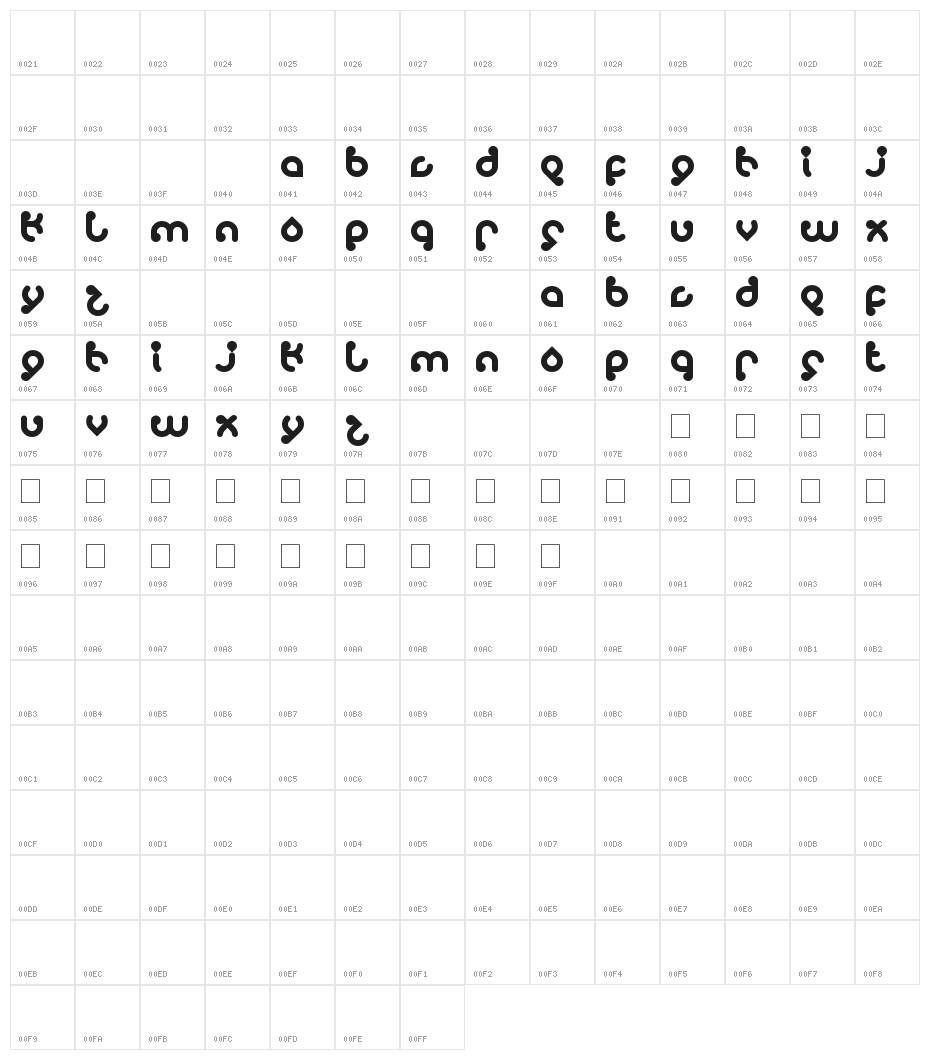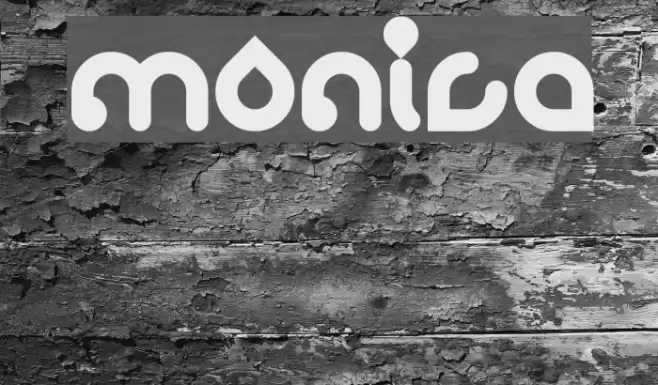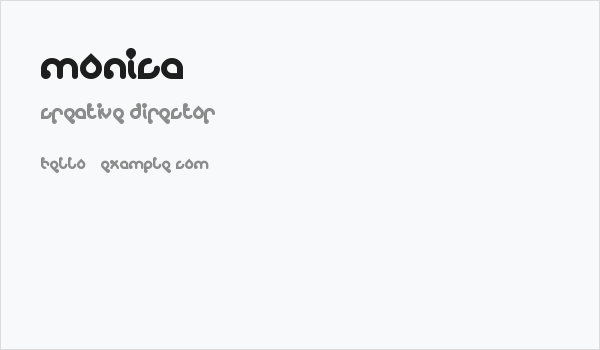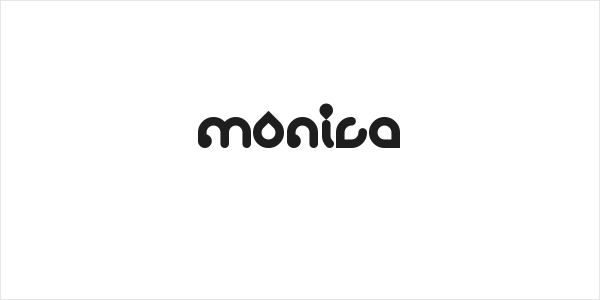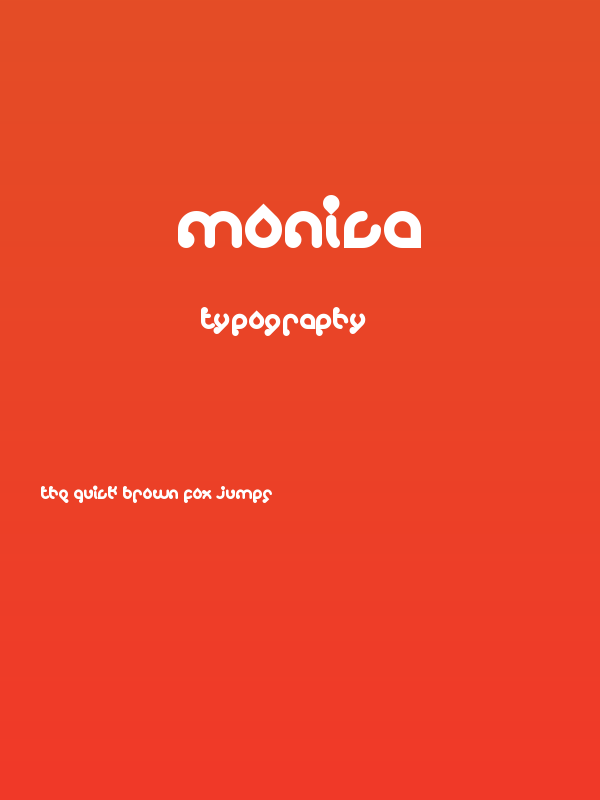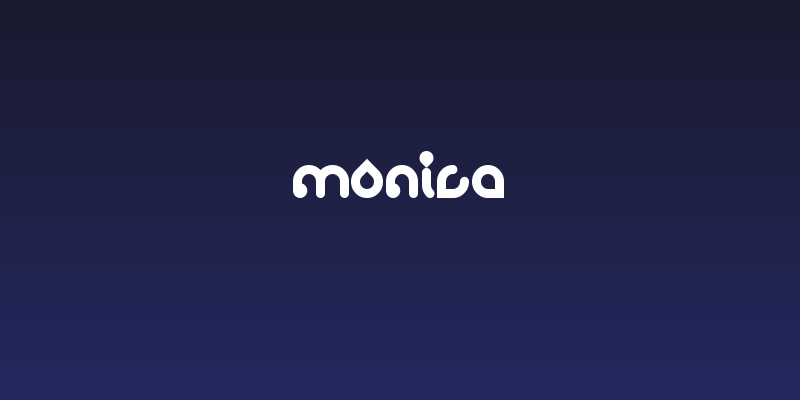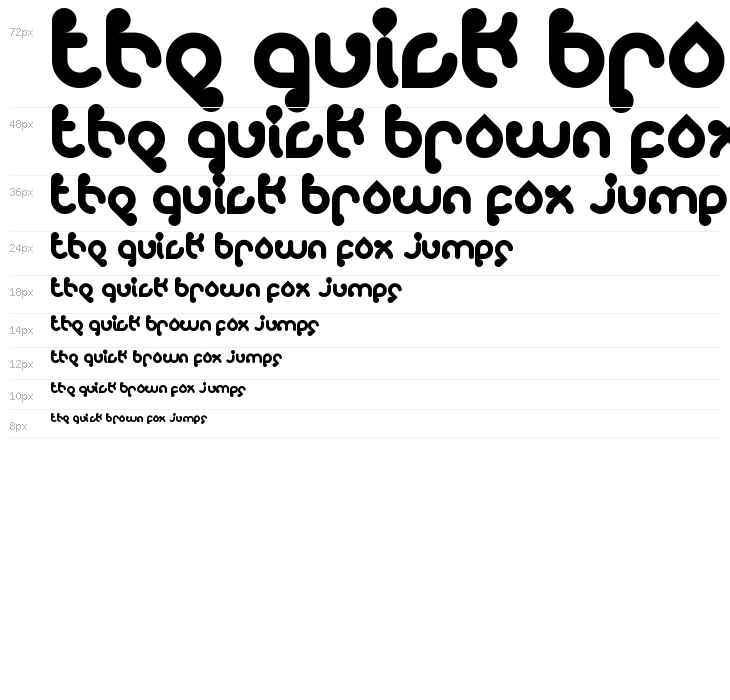
monica Font
monica Description
This font features a playful and rounded design with a unique geometric style. Each character is crafted with bold, thick strokes that create a sense of fun and creativity. The letters are connected with smooth curves and circular elements, giving the font a cohesive and harmonious look. The overall appearance is modern and eye-catching, making it suitable for projects that require a distinctive and lively typeface. The font's design emphasizes readability while maintaining a decorative flair, making it versatile for various creative applications.
| Proposed Projects | Ideal for children's books, playful branding, creative posters, and modern digital designs. |